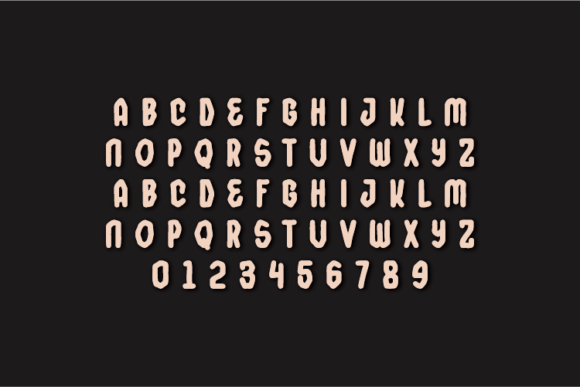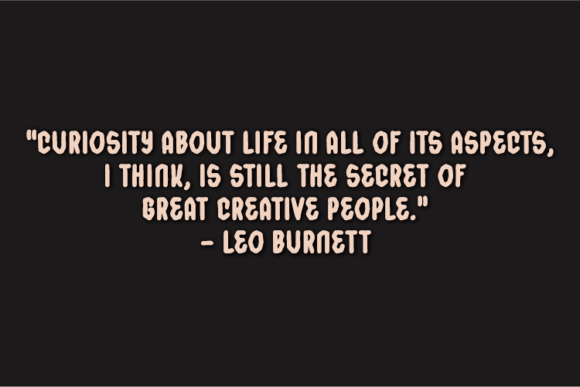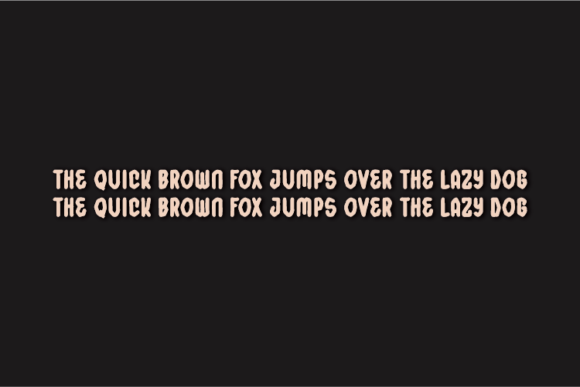
The Quest for the Perfect Font: Discovering Hazelnut Cake
I’ll never forget the design project that led me to Hazelnut Cake. I was working on a branding project for a trendy coffee shop, and I needed a font that would capture the warmth and coziness of their brand. I spent hours scouring font websites, but nothing seemed quite right. That was when I stumbled upon Hazelnut Cake, a natural display font that instantly caught my eye.
A Unique and Lovely Typeface
Hazelnut Cake is a one-of-a-kind font that was created without changing a single node in each character’s indentation. This unique approach gives the font its interesting and distinctive look. **It’s perfect for adding a touch of personality to quotes, notes, tees, or any other design project**. The font’s natural, effortless vibe makes it ideal for designers, crafters, and creative hobbyists looking to add some character to their work.
- ✨ Unique and distinctive character design
- ✅ Perfect for display text and headlines
- 💕 Natural, effortless vibe that adds personality to designs
- 🎉 Works well with a variety of design styles, from modern to vintage
While Hazelnut Cake is an amazing font, it’s not without its quirks. For example, some characters may appear a bit irregular or imperfect due to the font’s unique design approach. ⚠️ Additionally, the font may not be suitable for body text or small font sizes, as it can be a bit tricky to read. 🤔
The Story Behind Hazelnut Cake
According to the font’s designer, Hazelnut Cake was inspired by the natural world and the beauty of imperfection. The designer wanted to create a font that would capture the uniqueness and character of handwritten text, without sacrificing legibility or style. The result is a font that’s both beautiful and distinctive, with a personality all its own.
| Font Name | Hazelnut Cake Font |
| Author | Hanna Bie |
Q: What is Hazelnut Cake?
A: Hazelnut Cake is a natural display font made without changing a single node in each character’s indentation. It’s perfect for adding a touch of personality to quotes, notes, tees, or any other design project.
Q: Is Hazelnut Cake suitable for body text?
A: While Hazelnut Cake is a beautiful font, it’s not ideal for body text or small font sizes. It’s best used for display text and headlines.